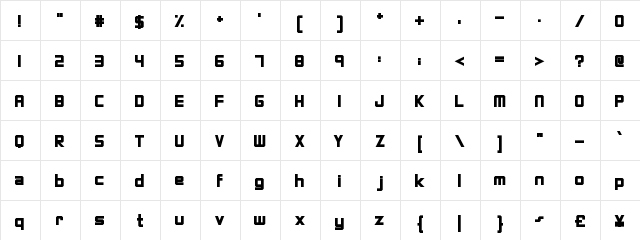
FIGHTING FORCE Regular
| Designer | Darrell Flood |
Design Context for FIGHTING FORCE Typeface
FIGHTING FORCE brings high-energy athletic personality to the page — its confident, muscular forms are built for impact.
A natural choice for gym brands, fantasy sports, jersey lettering, and action-driven headlines.
Pro Tip: Use FIGHTING FORCE in all-caps headlines where its athletic energy can fully express itself. Pair with a solid, simple sans for supporting text.